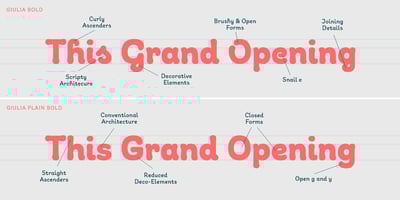
Giulia
Giulia font
Giulia Font Family was designed by Hannes von Döhren and published by HVD Fonts. Giulia contains 12 styles and family package options. Giulia is a sweet type family consisting of 12 Fonts. It was created by Hannes von Döhren and published by HvD Fonts. Besides a fancy curly version there is a second version with a more straight architecture, still owning the same soft and friendly character. Informal and easy going at first sight and perfect for display settings, however the straight architecture of Giulia Plain also makes it nice for shorter to medium texts. This contemporary type family is ideal for use in retail, packaging, games, food, kids applications and advertising.